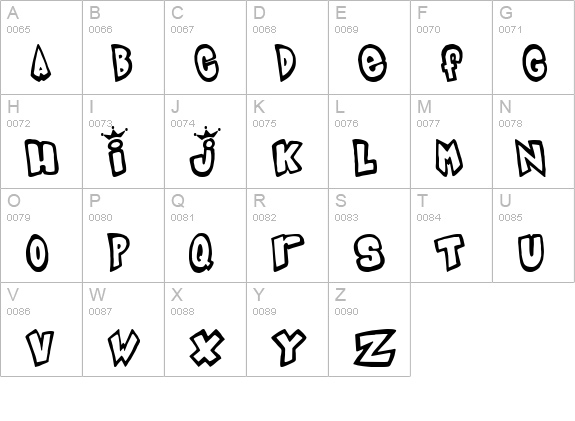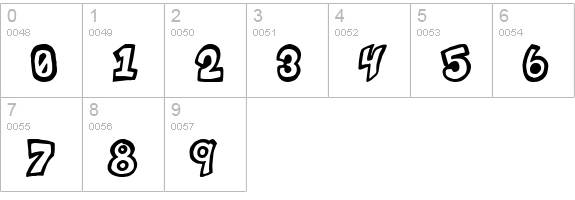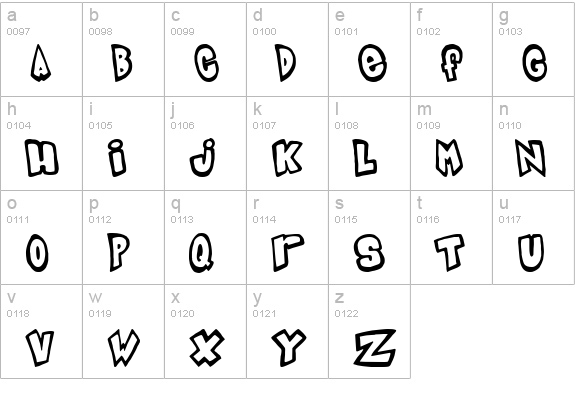
Indigo Joker Font Details
Indigo Joker font is a playful and vibrant typeface that adds a touch of whimsy and excitement to any design. With its bold and curvy letterforms, this font is perfect for creating eye-catching headlines, logos, and posters. The Indigo Joker font is a free font that is sure to bring a burst of energy to your projects. Whether you're designing a party invitation, a children's book cover, or a fun social media post, this font will make your text stand out and grab attention. What sets Indigo Joker apart is its unique combination of modern and retro elements. The rounded edges and exaggerated curves give it a nostalgic feel, while the clean lines and contemporary details keep it fresh and contemporary. This font strikes the perfect balance between playful and professional, making it versatile and suitable for a wide range of design styles. Indigo Joker is freely available to download at FontsMarket.com. This means you can easily access this font and use it in your personal and commercial projects without any restrictions. Whether you're a professional designer or a hobbyist, this font is a valuable addition to your typographic toolbox. So, if you're looking to add a touch of fun and personality to your designs, look no further than Indigo Joker font. Download it for free at FontsMarket.com and let your creativity run wild!